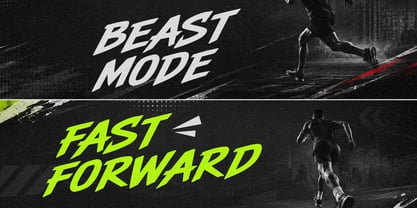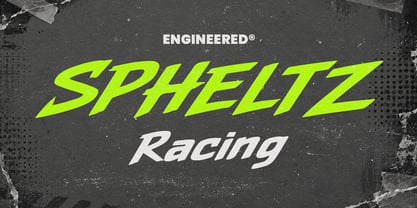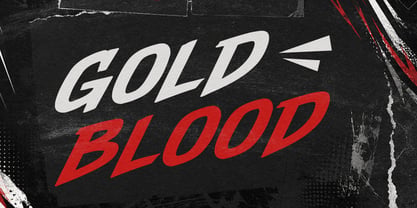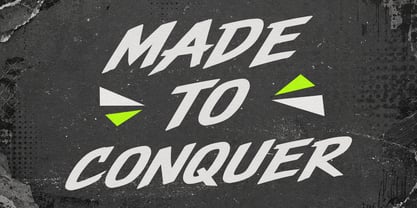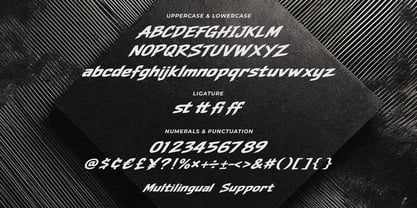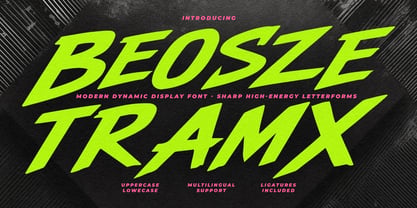
Beosze Tramx
by Maulana Creative
The Beosze Tramx Font Family was designed by Gilang Maulana and published by Maulana Creative. Beosze Tramx contains 1 styles. More about this family
Beosze Tramx is a high-energy display font designed with sharp, aggressive cuts and forward-leaning slant angles that embody speed and movement. Featuring dynamic letterforms with a raw, athletic feel, this typeface commands attention across high-impact visual projects. The set includes uppercase and lowercase characters, numerals, punctuation, ligatures, and broad multilingual support, ensuring versatility for modern creative production.
Engineered for bold visual statements, Beosze Tramx excels in sports branding, racing graphics, event posters, action game titles, and heavy-duty logo design. Its sharp aesthetics deliver an intense visual edge, making it an ideal choice for digital media, promo banners, esports identity, and aggressive branding layouts where maximum impact is required.